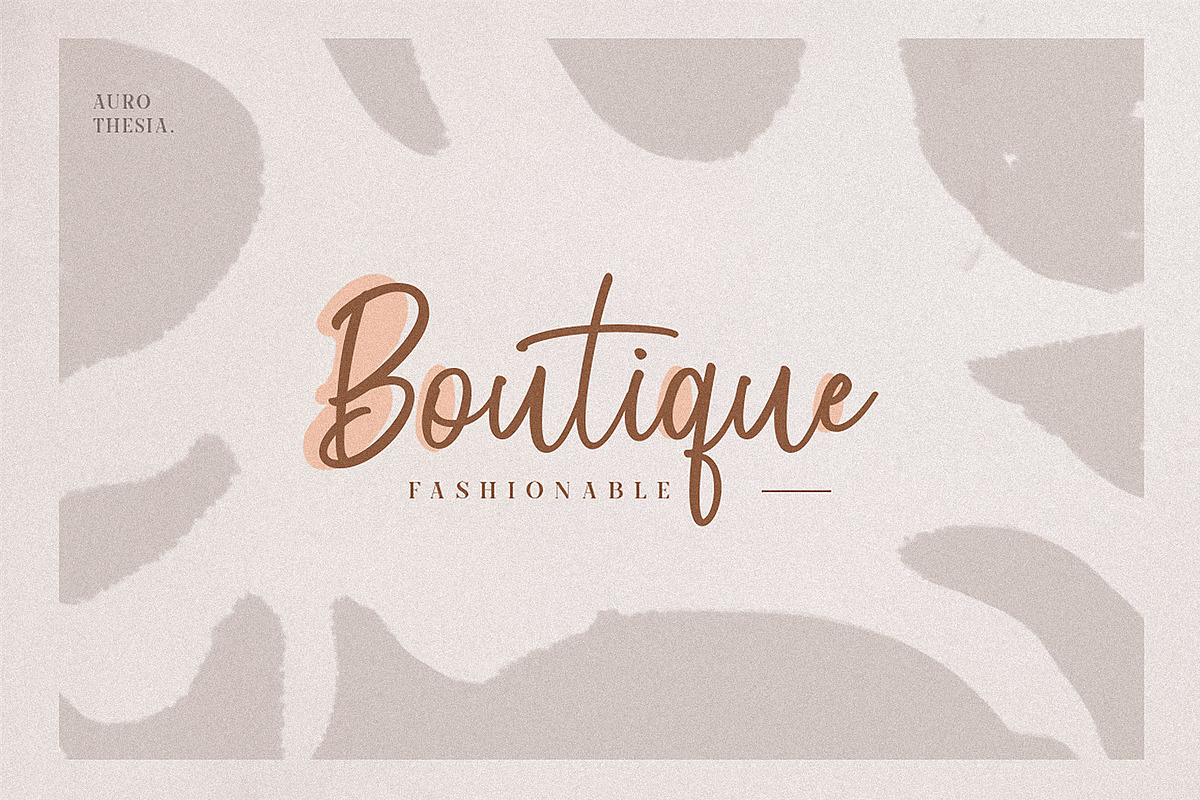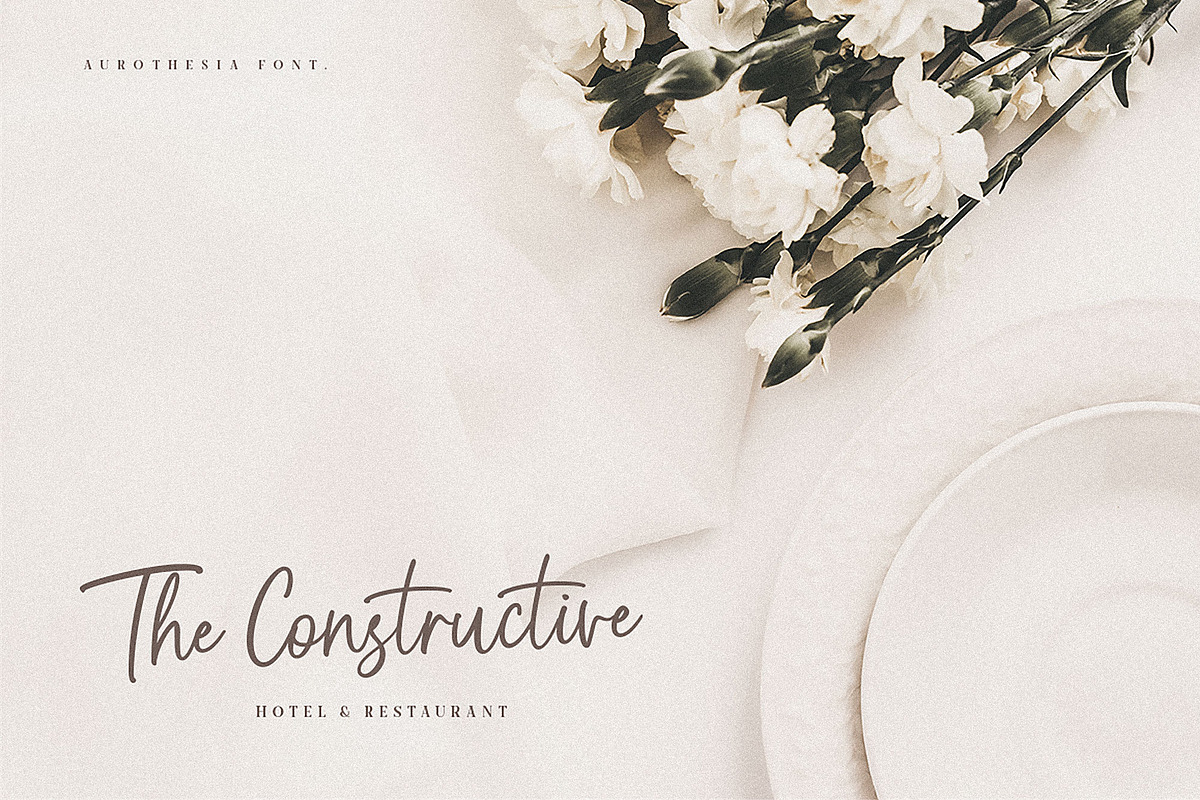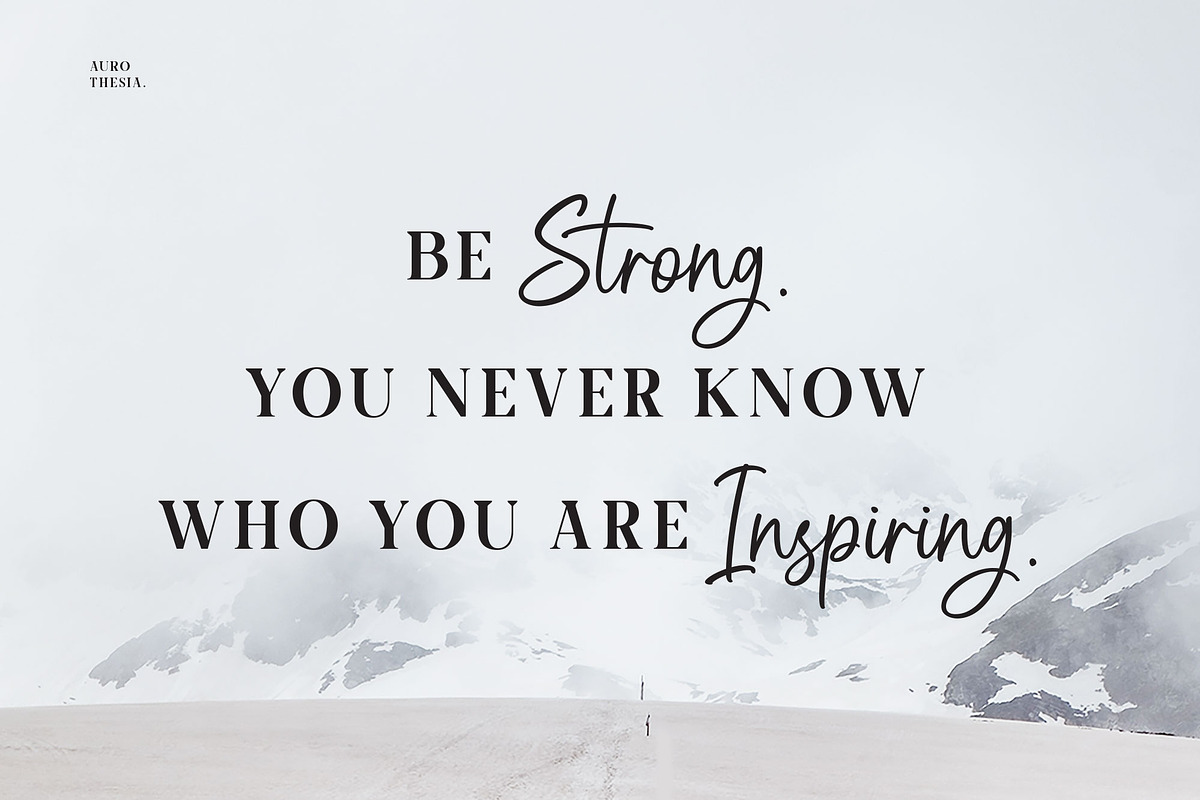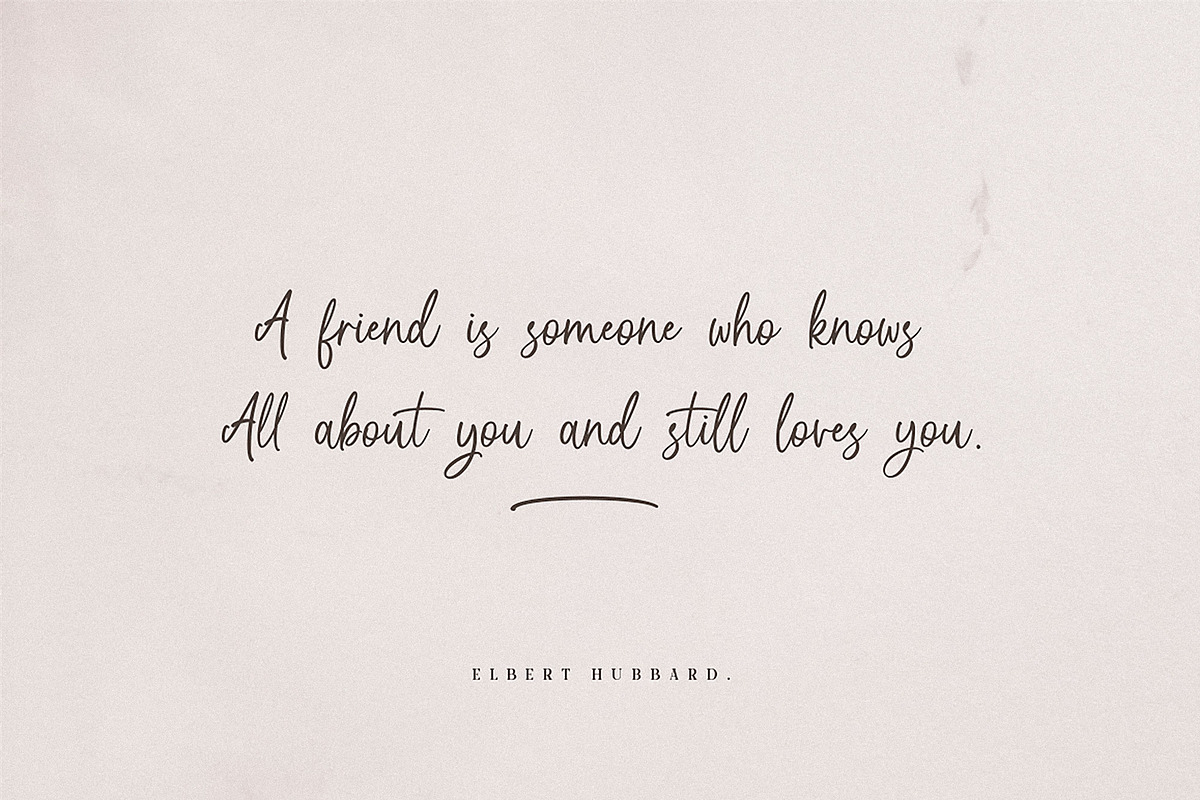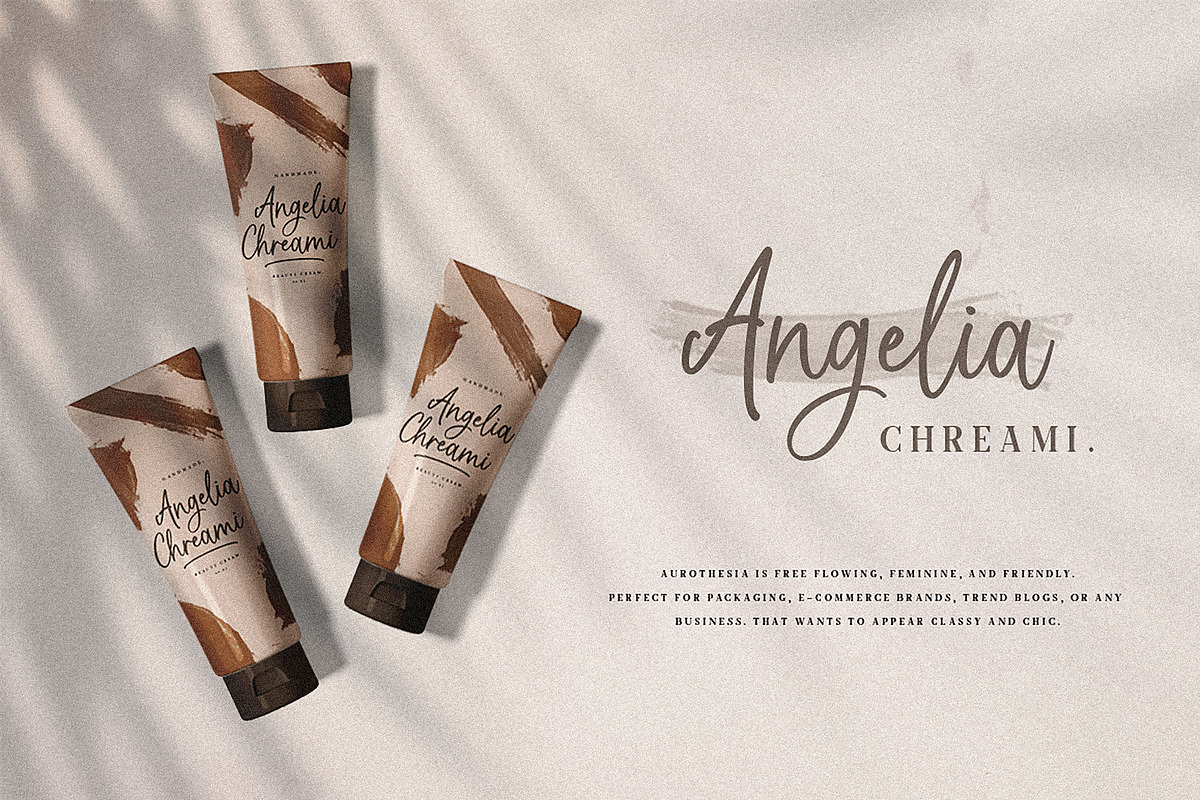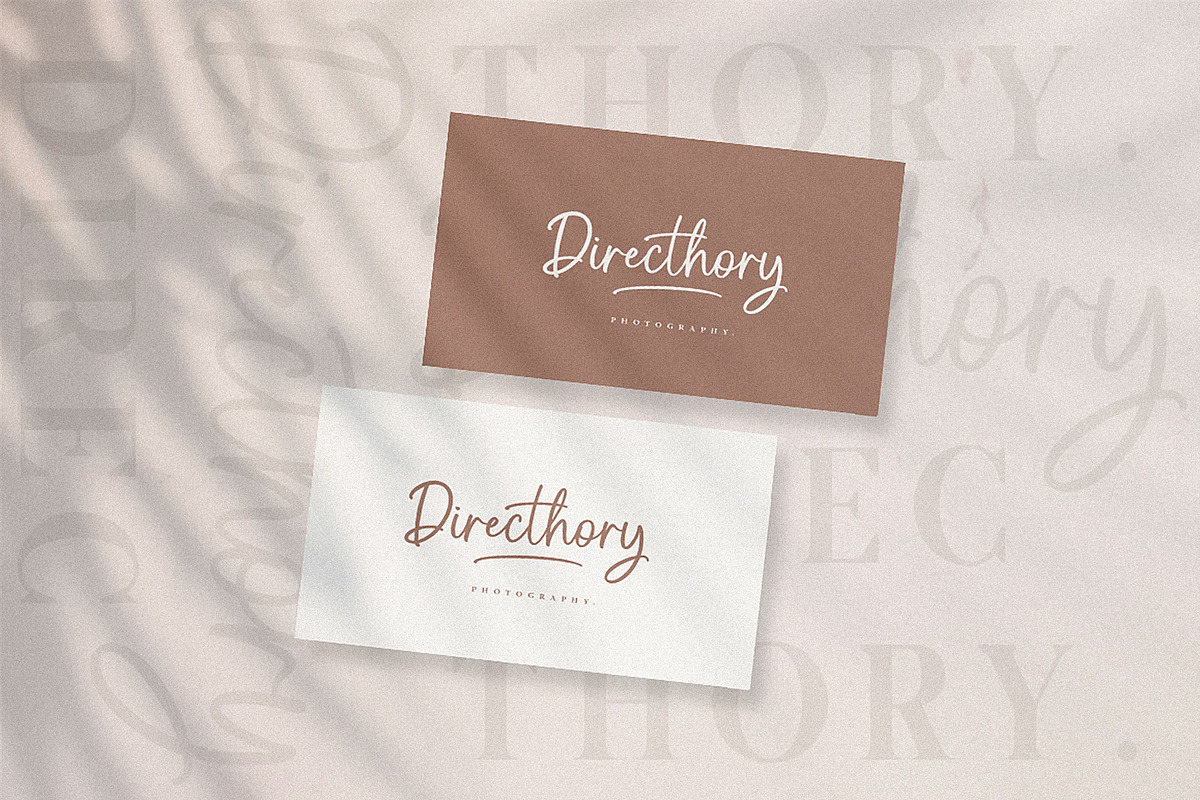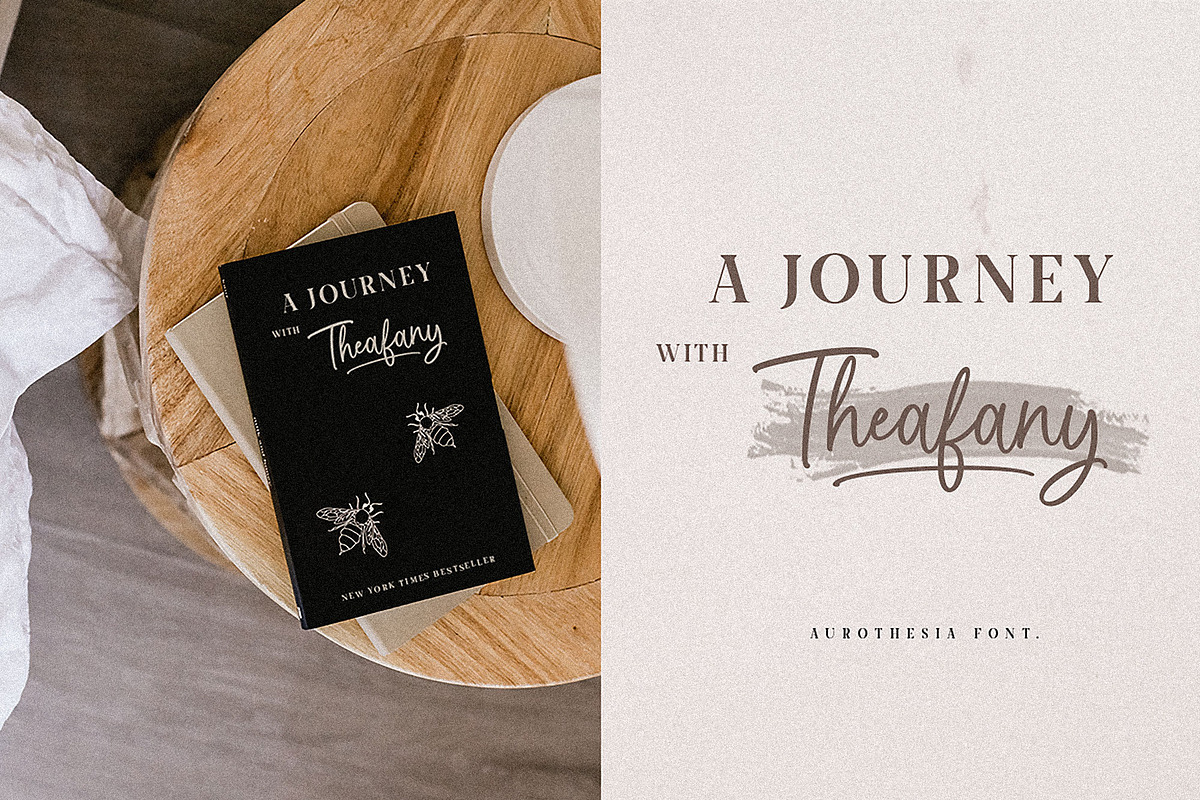
Aurothesia Casual Chic Font Duo!
Introducing our latest product the Aurotheisa Font Duo! classy, contemporary pair of script and serif fonts. It is free-flowing, feminine, fashionable and friendly. Aurotheisa is perfect for fashion, e-commerce brands, trend blogs, or any business that wants to appear casual and chic.
Discretionary ligatures
4 swash (numeral keys)
PUA Encoded Characters
- Aurotheisa Includes: Uppercase,lowercase,numeral,punctuation & Symbol Multilingual support Stylistic alternates Discretionary ligatures 4 sw